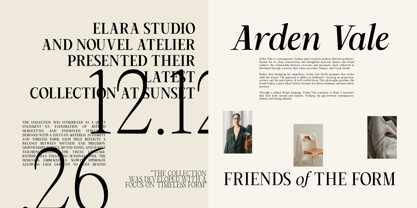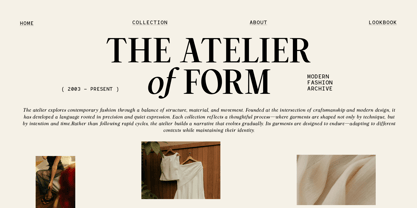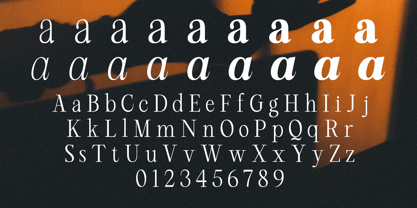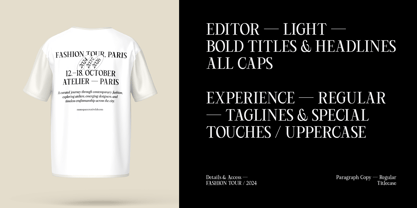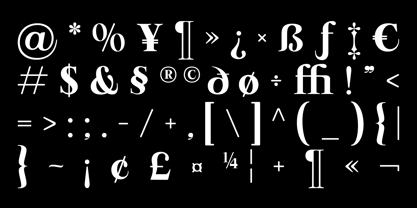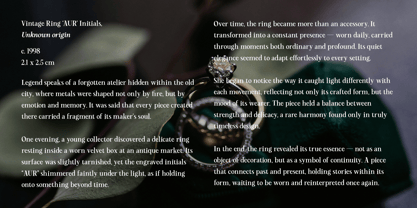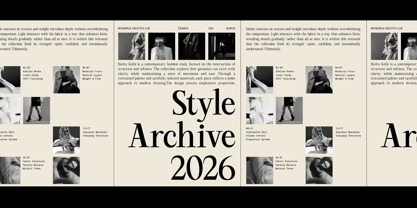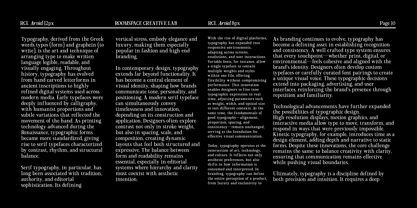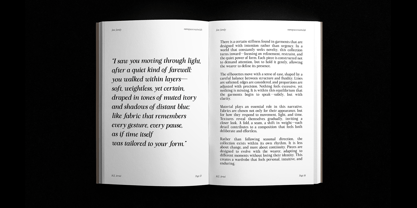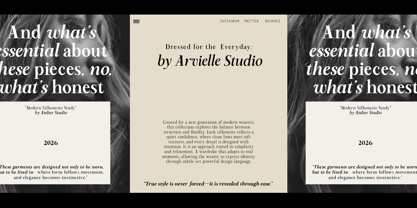
RCL Arviel
RCL Arviel is a modern serif typeface crafted to create strong visual impact through elegant contrast and expressive form. Defined by its sculpted serifs, dynamic curves, and editorial character, Arviel balances classical sophistication with contemporary boldness. With 18 weights available, this serif family offers flexibility for both dramatic headlines and refined layouts. It is designed for designers who want to create powerful branding, fashion visuals, and high-end editorial compositions. Features 18 font weights (Thin to Bold) High-contrast serif design Uppercase & lowercase Multilingual support Professional kerning & spacing Perfect For : Luxury branding, Fashion editorials, Magazine headlines, Logo design, Creative direction, Packaging design and Digital campaigns.